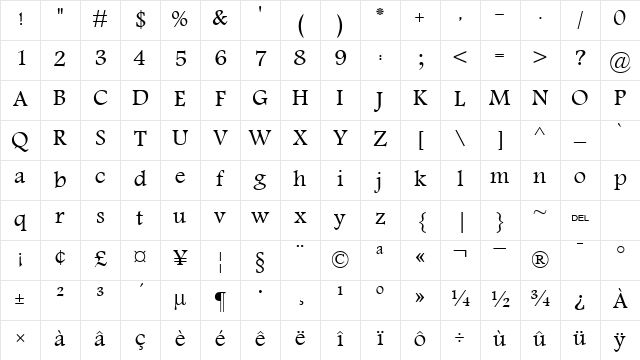
Complete Mohammad mashtoof glyph index. Displaying only characters natively supported by Mohammad mashtoof font.
Mohammad mashtoof is a composed and adaptable typeface that performs quietly and consistently across a wide range of design contexts.